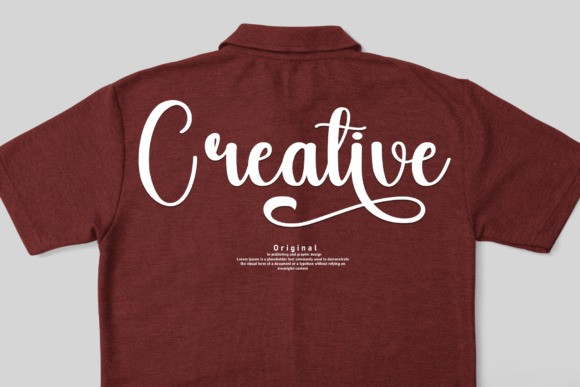
Blonde Barbie Font
Blonde Barbie Font is a sweet and friendly handwritten display font. Cute and fun, this font is ideal for writing wedding invitations, cards, or any other design that might need a fun touch!